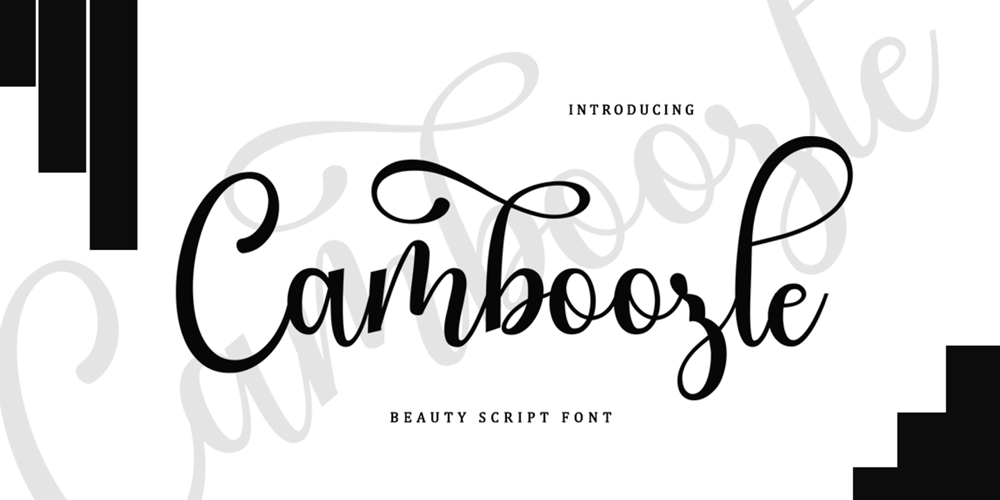
Camboozle Font Family was designed by Muhibbus Sabri and published by Queenop Studio. Camboozle contains 1 styles and family package options. Camboozle FontCamboozle is an elegant, beautiful, and perfectly flowing handwritten font for your favorite projects. This font is neatly crafted and very detailed. Whatever the topic, this font will be a great asset to your font library, as it has the potential to enhance any creation. Fall in love with her radically different and timeless style, and use it to create stunning designs. Tons of alternatives will help you create whatever design you need such as cute and girly handwritten letters and other designs that require a beautiful handwritten touch! Enjoy :)Contains full set:- Uppercase- Lowercase- Alternative- Ligature- Punctuation- Number- Multilingual support.Need help or have questions let me know. I’m happy to help.Thank you & Congratulations on the Design.